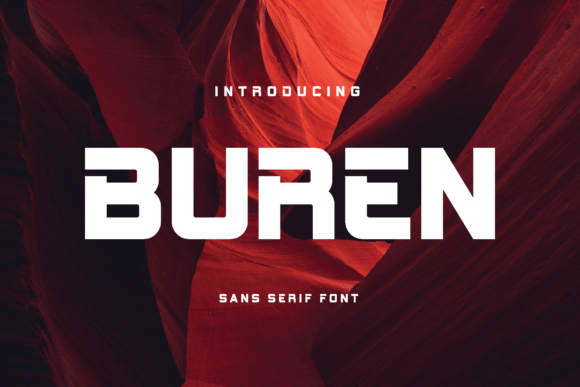
Buren Font: The Ultimate Sans Serif Typeface for Modern Design
In the world of typography, a good font can make all the difference in creating a lasting impression. For designers, finding the perfect font that embodies the essence of minimalism and elegance can be a daunting task. However, look no further than Buren Font, a sans serif typeface that has taken the design world by storm. Inspired by the famous minimalist logo, Buren Font is perfect for designing templates, brochures, videos, advertising branding, logos, invitation, layout design, elegant crafting, beauty design, and more.
What is Buren Font?
Buren Font is a modern sans serif typeface that boasts a clean and minimalist aesthetic. Its sleek lines and curves make it an ideal choice for designers looking to create a sophisticated and elegant look. The font is inspired by the famous minimalist logo, which is characterized by its simplicity and precision. Buren Font takes this concept to the next level, offering a versatile and highly legible font that can be used in a variety of design applications.
Design Applications of Buren Font
Buren Font is a highly versatile typeface that can be used in a wide range of design applications. Some of the most popular uses of Buren Font include:
- Templates: Buren Font is perfect for designing templates for brochures, flyers, and other marketing materials. Its clean and minimalist aesthetic makes it easy to read and understand.
- Brochures: Create stunning brochures with Buren Font that showcase your products or services in a clear and concise manner.
- Videos: Use Buren Font in your video projects to add a touch of elegance and sophistication.
- Advertising Branding: Buren Font is an excellent choice for advertising branding, as it can help create a consistent and recognizable visual identity.
- Logos: Create a lasting impression with Buren Font by using it to design logos that are both simple and memorable.
- Invitation: Use Buren Font to design elegant and sophisticated invitations for special events.
- Layout Design: Buren Font is perfect for layout design, as it can help create a clear and organized visual hierarchy.
- Elegant Crafting: Add a touch of elegance to your crafting projects with Buren Font.
- Beauty Design: Use Buren Font in your beauty design projects to create a sophisticated and luxurious look.
Benefits of Using Buren Font
Buren Font offers a range of benefits that make it an ideal choice for designers. Some of the most significant advantages of using Buren Font include:
- Clean and Minimalist Aesthetic: Buren Font boasts a clean and minimalist aesthetic that makes it easy to read and understand.
- Highly Legible: Buren Font is highly legible, even at small font sizes, making it perfect for body text and captions.
- Versatile: Buren Font is a highly versatile typeface that can be used in a wide range of design applications.
- Elegant and Sophisticated: Buren Font adds a touch of elegance and sophistication to any design project.
Tips for Using Buren Font
To get the most out of Buren Font, here are some tips to keep in mind:
- Use it with a clear visual hierarchy: Use Buren Font to create a clear visual hierarchy in your design projects.
- Pair it with other fonts: Experiment with pairing Buren Font with other fonts to create a unique and interesting look.
- Adjust font sizes: Adjust font sizes to create visual interest and add emphasis to important text.
- Use it consistently: Use Buren Font consistently throughout your design project to create a cohesive look.
In conclusion, Buren Font is a highly versatile and elegant sans serif typeface that is perfect for modern design. Its clean and minimalist aesthetic makes it easy to read and understand, while its highly legible design makes it perfect for body text and captions. With its wide range of design applications and benefits, Buren Font is an excellent choice for designers looking to create a lasting impression.